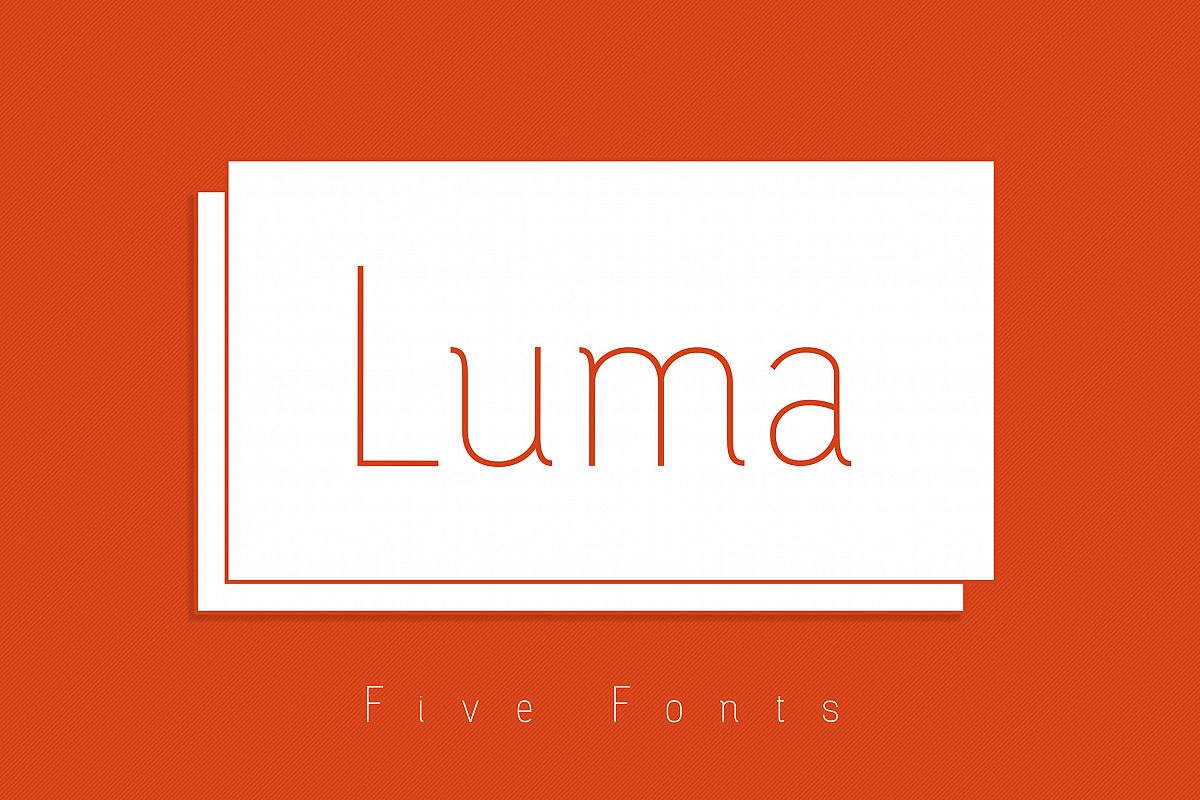
Luma is a 5 weight sans serif thin font perfect for print and web. Designed for clean and harmonious look makes it great for headlines on web, packing, editorial and signage.What is in the package:
- 5 weights - Ultralight, light, regular, semibold and Bold.